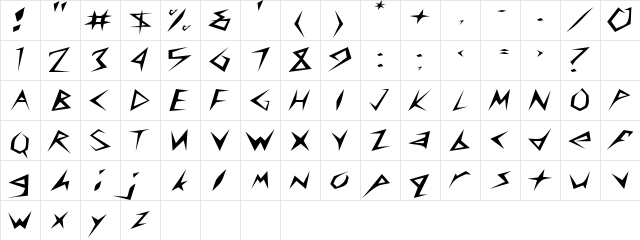
AmplifierExtended Regular
Design Context for AmplifierExtended Typeface
AmplifierExtended is a composed and adaptable typeface that performs quietly and consistently across a wide range of design contexts.